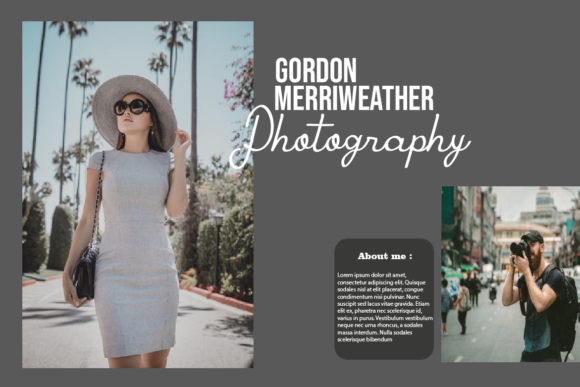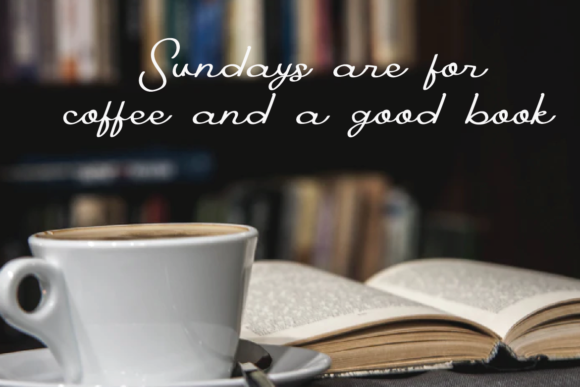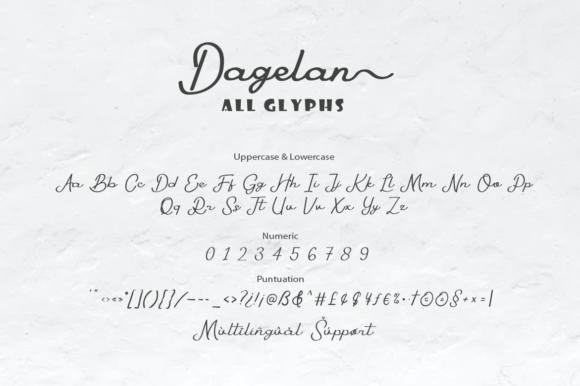
Introducing Dagelan Font: Elevate Your Designs with Elegance
In the world of typography, a font can make or break a design. For those seeking a touch of sophistication and delicacy, Dagelan Font emerges as a stellar choice. This stylish and delicate script font is poised to revolutionize your creative projects with its clean, thin, and smooth aesthetic. Whether you’re a seasoned designer or a crafting enthusiast, Dagelan Font is about to become your go-to for adding that extra layer of elegance to your work.
The Essence of Dagelan Font
Dagelan Font is not just any script font; it’s a masterpiece of modern typography. Its clean lines and thin strokes bring a level of sophistication that’s hard to achieve with bulkier fonts. The smooth vibe of Dagelan ensures that your designs exude a sense of fluidity and grace, making it perfect for projects where aesthetic appeal is paramount.
One of the standout features of Dagelan Font is its PUA (Private Use Area) encoding. This means that accessing the beautiful glyphs and swashes is incredibly straightforward. Designers and crafters can easily incorporate these special characters into their work, allowing for a high degree of customization and creativity. No longer do you have to struggle with complicated design software to achieve the look you want; Dagelan Font puts the power at your fingertips.
The versatility of Dagelan Font is another one of its strong suits. Whether you’re working on a branding project, crafting beautiful stationery, or designing eye-catching posters, this font adapts seamlessly. Its elegance ensures that it can elevate any design, making it a valuable addition to your typography arsenal.
Why Choose Dagelan Font?
- Elegance and Sophistication: Dagelan Font brings a level of elegance that’s hard to match, making your designs stand out.
- Easy to Use: With PUA encoding, using the glyphs and swashes is simple, saving you time and effort.
- Versatile: Suitable for a wide range of projects, from digital designs to print materials.
- Clean and Smooth: The thin and smooth aesthetic ensures your designs look refined and polished.
Tips for Using Dagelan Font
To get the most out of Dagelan Font, consider the following tips:
- Pair it Wisely: Combine Dagelan Font with complementary fonts to create visual interest.
- Experiment with Sizes: Play around with different sizes to see how Dagelan Font can be used for both headings and body text.
- Utilize Glyphs and Swashes: Don’t be afraid to get creative with the glyphs and swashes to add a personal touch to your designs.
Dagelan Font is more than just a script font; it’s a tool for designers and crafters to elevate their work. With its stylish and delicate appearance, clean lines, and ease of use thanks to PUA encoding, Dagelan Font is set to become a favorite in the world of design. Whether you’re looking to add a touch of elegance to your projects or seeking a versatile font that can adapt to any design need, Dagelan Font is an excellent choice. Embrace the beauty and versatility of Dagelan Font and watch your designs transform with sophistication and style.